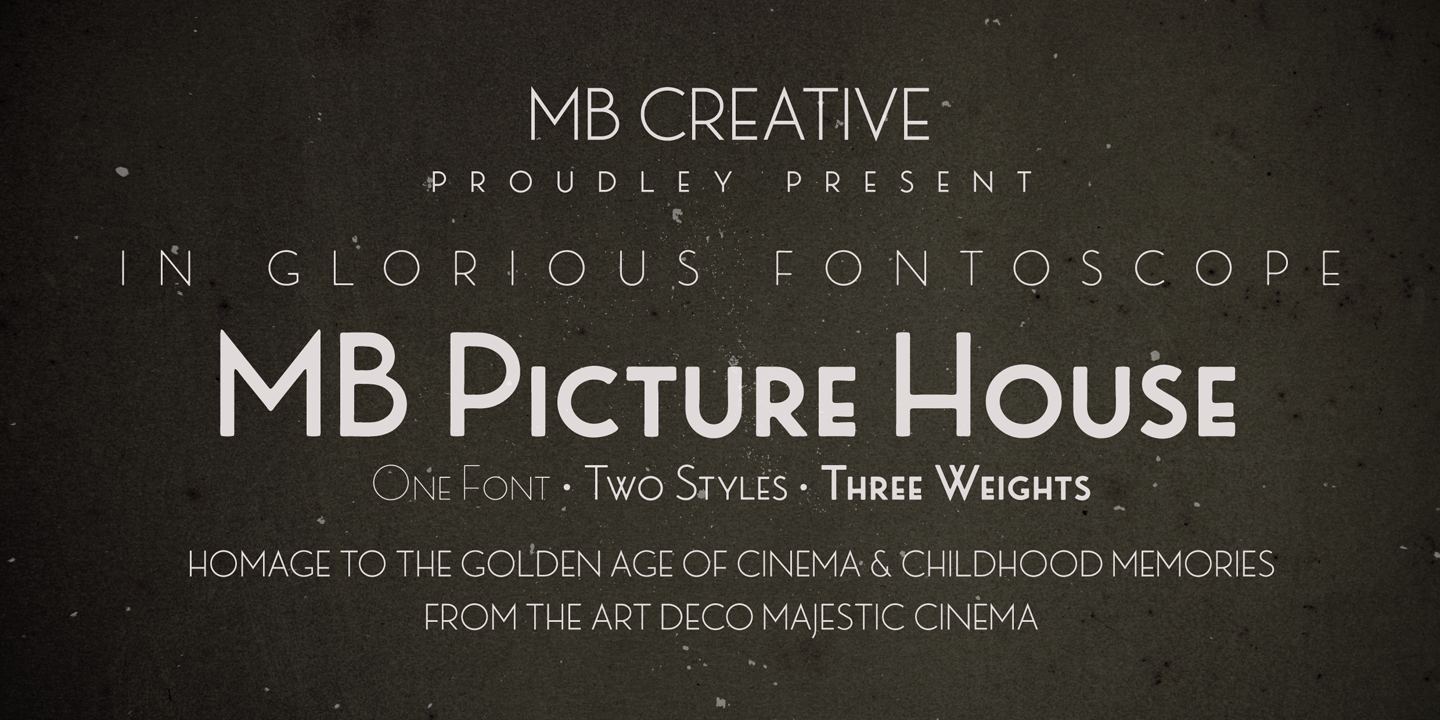
MB Picture House Font is perfect for vintage cinema posters, classic movie theater signage, retro film festival graphics, old Hollywood promotional materials, nostalgic entertainment venues, vintage photography studios, classic media company branding, historical film archives, and any design project that requires authentic golden age cinema aesthetics and timeless entertainment elegance.
What makes MB Picture House Font so exciting is its remarkable ability to transport viewers directly into the glamorous world of classic cinema with letterforms that capture the magical essence of Hollywood's golden era with stunning authenticity. This font embodies the romance and sophistication of vintage movie palaces with its elegant, theatrical character shapes that evoke the grandeur of classic film marquees and the timeless appeal of silver screen entertainment. The carefully crafted characters feature period-appropriate proportions and cinematic flair that communicate nostalgia, artistic excellence, and entertainment heritage, creating the perfect typography solution for projects celebrating the artistry and glamour of classic filmmaking.
The MB Picture House Font family typically includes regular weight variations with comprehensive character sets featuring uppercase and lowercase letters, numerals, punctuation marks, and cinematic design elements. Some versions may offer additional weights and stylistic alternates that provide designers with theatrical options for creating authentic, golden age layouts with genuine Hollywood appeal and vintage entertainment sophistication.
MB Picture House Font Free Download has gained tremendous recognition among entertainment designers, film industry professionals, and vintage enthusiasts who specialize in classic cinema aesthetics. This distinctive typeface excels in both digital and print applications where authentic vintage character and entertainment heritage are essential for connecting with audiences who appreciate the artistry and glamour of classic Hollywood filmmaking.
The font's cinematic design makes it particularly effective for entertainment venues, film festivals, vintage-themed restaurants, and cultural institutions that need to communicate artistic heritage and classic entertainment values. Its theatrical character shapes and excellent vintage appeal ensure professional results across various media formats.
Designers choose MB Picture House Font for its ability to instantly evoke the golden age of cinema while maintaining contemporary functionality for modern entertainment applications. The font's classic construction works magnificently on everything from film festival materials to vintage-inspired brand identities.
Whether you're developing cinema branding, entertainment event graphics, vintage media materials, or classic film celebration designs, MB Picture House Font delivers the perfect combination of Hollywood glamour and timeless elegance that brings the magic of classic cinema to contemporary projects.